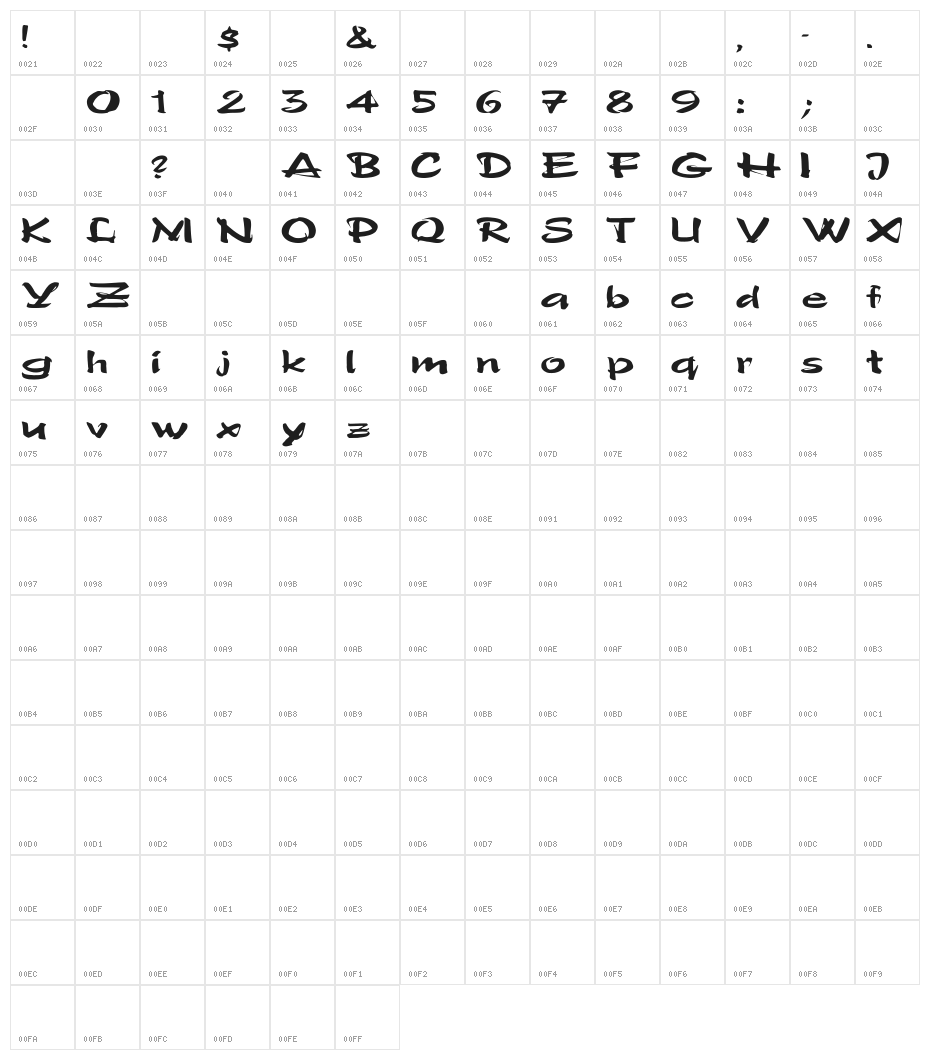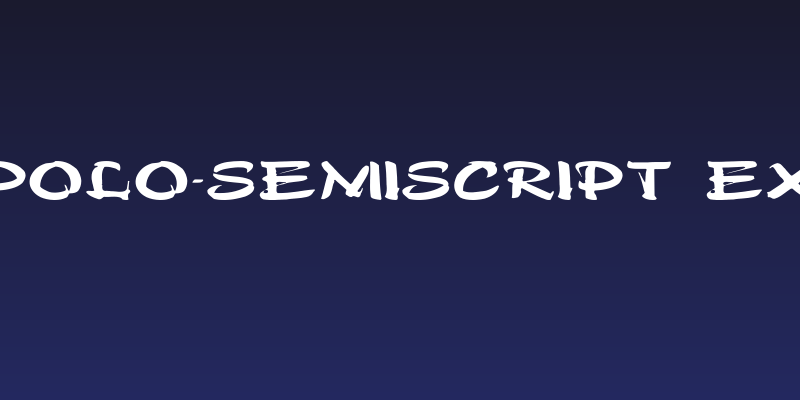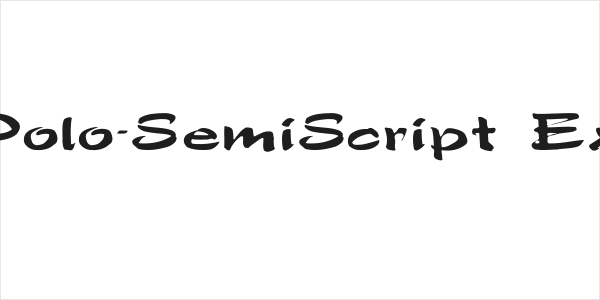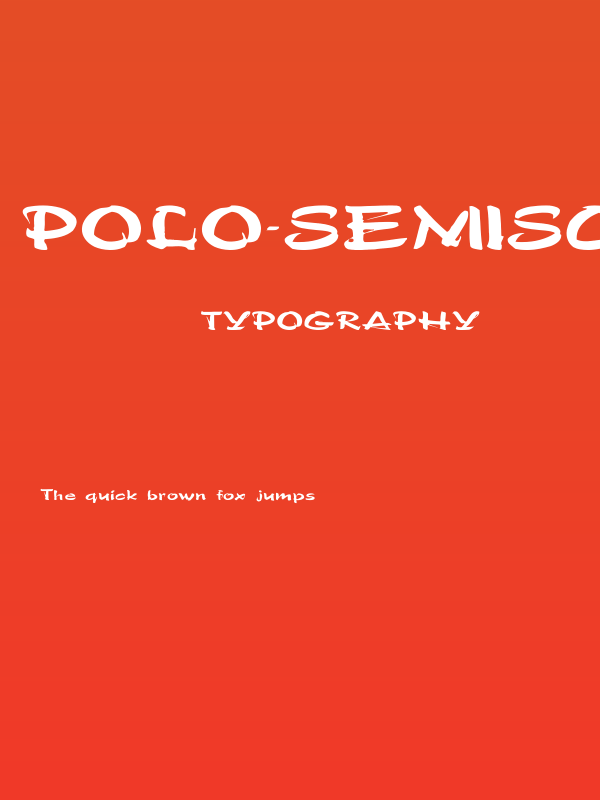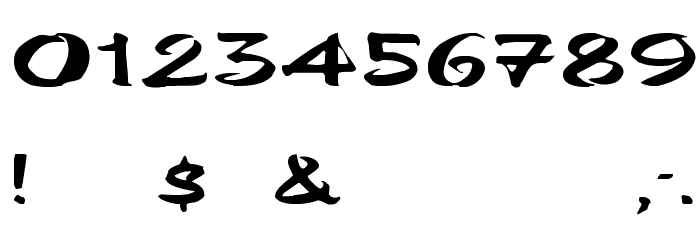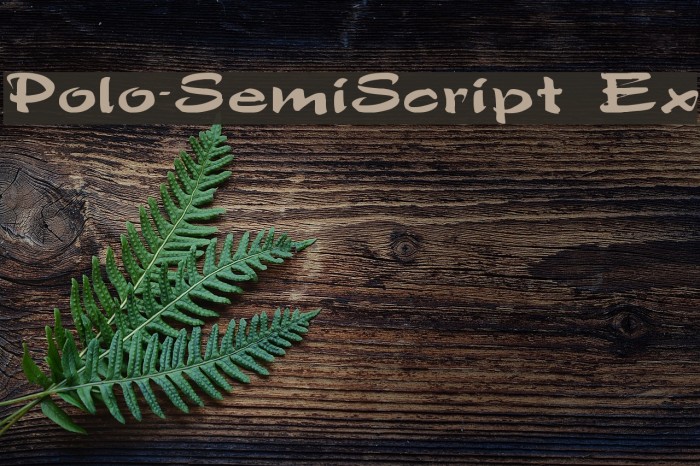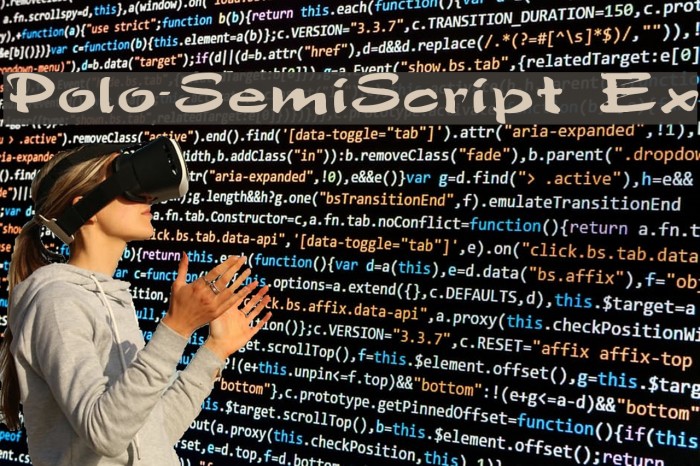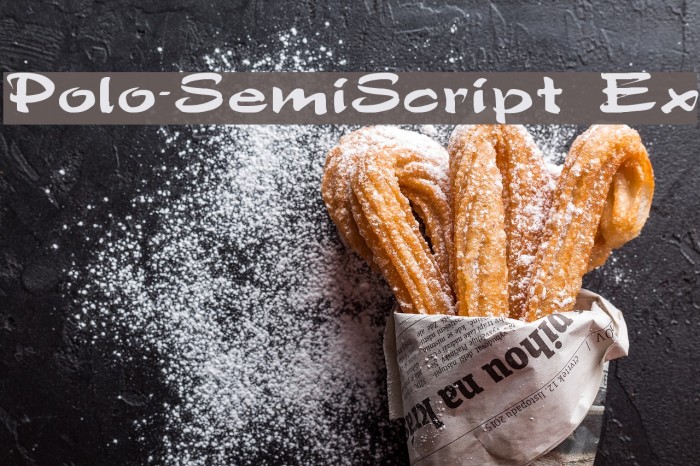
Polo-SemiScript Ex Font
Polo-SemiScript Ex Description
This font features a bold and expressive style with a semi-script appearance, combining elements of both script and sans-serif fonts. The characters exhibit a playful and dynamic flow, with thick strokes and slightly irregular shapes that give it a hand-drawn feel. The uppercase letters are bold and prominent, while the lowercase letters maintain a consistent style with a slightly more relaxed form. The numerals are clear and legible, matching the overall boldness of the alphabet. Special characters are creatively designed, adding to the font's unique personality.
| Proposed Projects | Ideal for creative projects such as posters, branding, and packaging design where a bold and artistic touch is desired. |